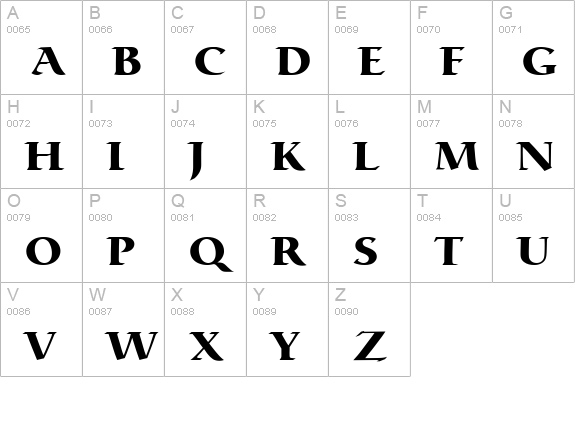
Catull (R) Bold Font Details
Catull (R) Bold is a strong, high-contrast variant in the Catull typeface family \xE2\x80\x94 well suited to headlines, attention-grabbing titles, and strong calls-to-action.
Catull (R) Bold is a striking and versatile font that exudes elegance and sophistication. With its bold and strong appearance, this typeface commands attention and makes a bold statement. The clean lines and balanced proportions of Catull (R) Bold create a modern yet timeless look that is perfect for a wide range of design projects. What sets Catull (R) Bold apart is not only its aesthetic appeal but also its versatility. This font can be used for a variety of purposes, from headlines and titles to logos and branding materials. Its bold and impactful presence ensures that your message will be conveyed with clarity and style. The best part? Catull (R) Bold is available for free download at FontsMarket.com. This means that you can easily access this high-quality font and incorporate it into your designs without any cost. Whether you're a professional designer or a hobbyist, Catull (R) Bold is a valuable addition to your font library. Elevate your projects with this stunning typeface and make a lasting impression with Catull (R) Bold.